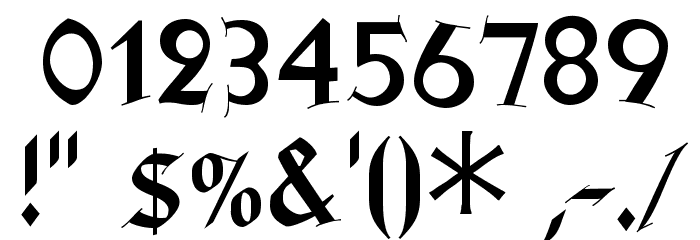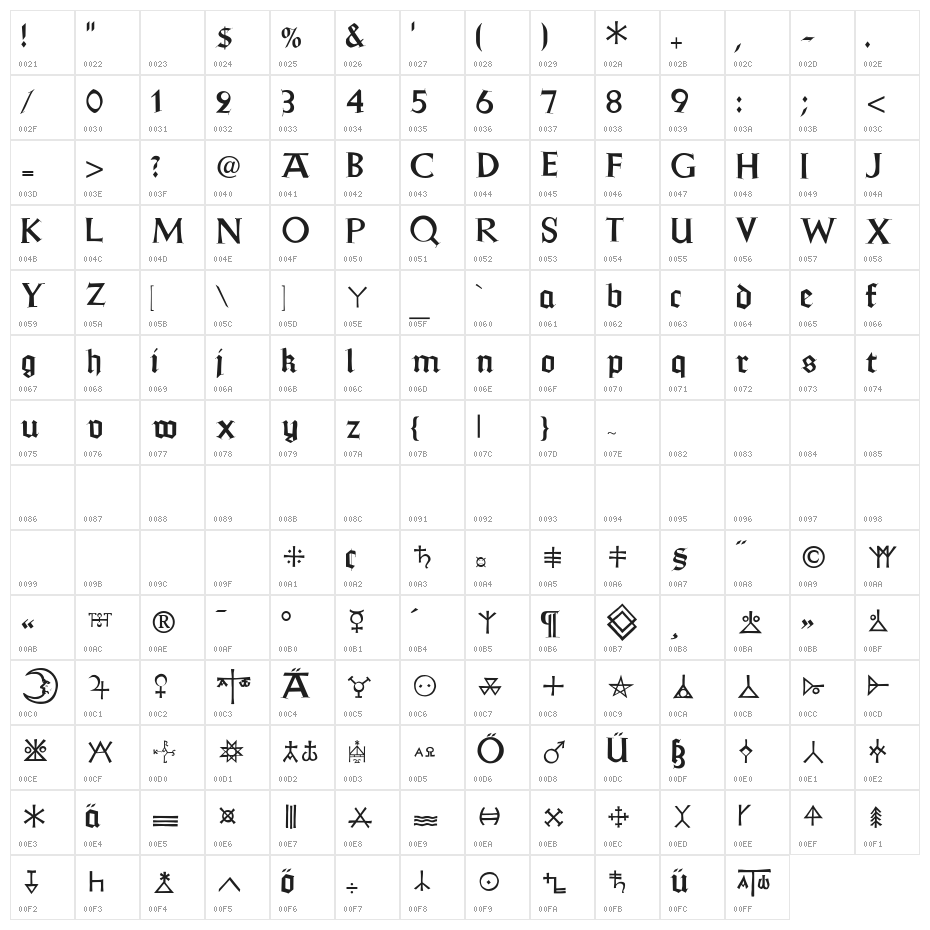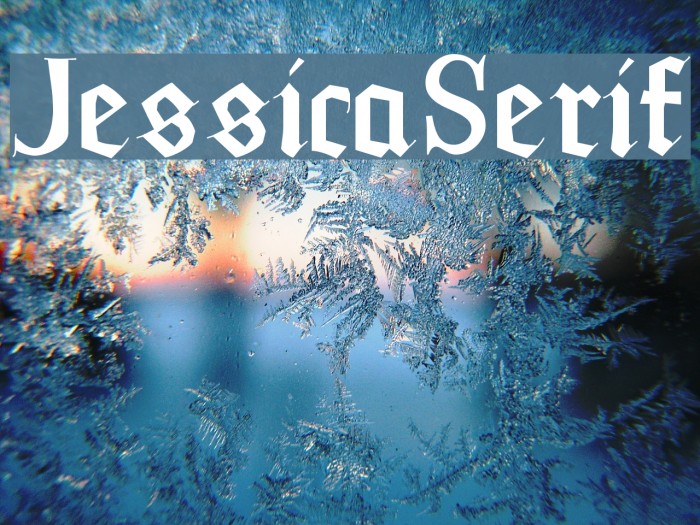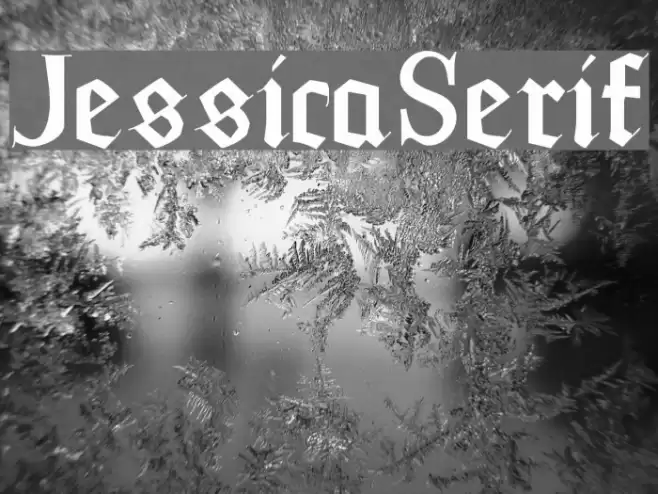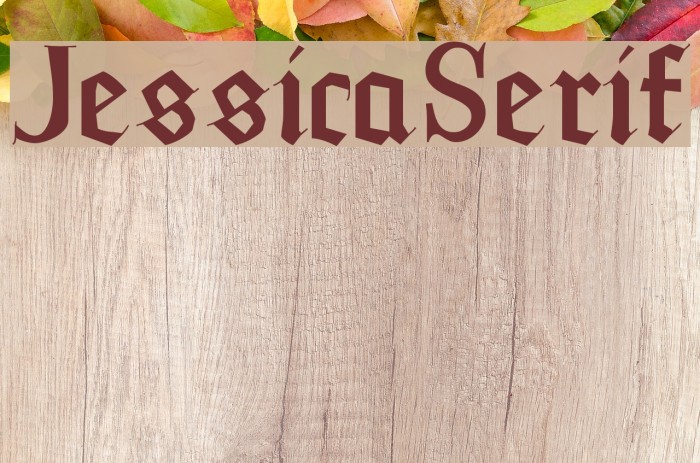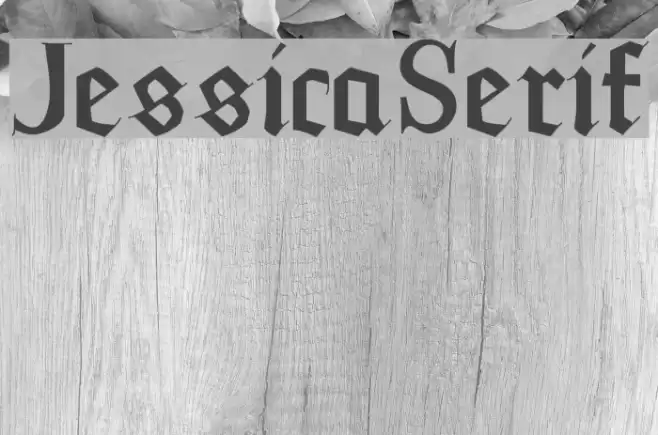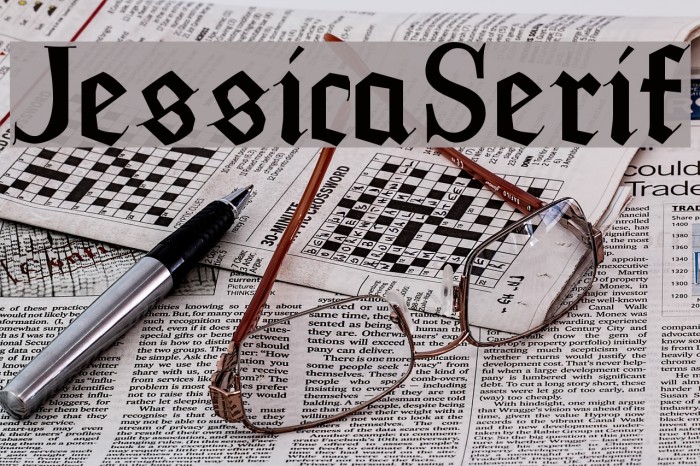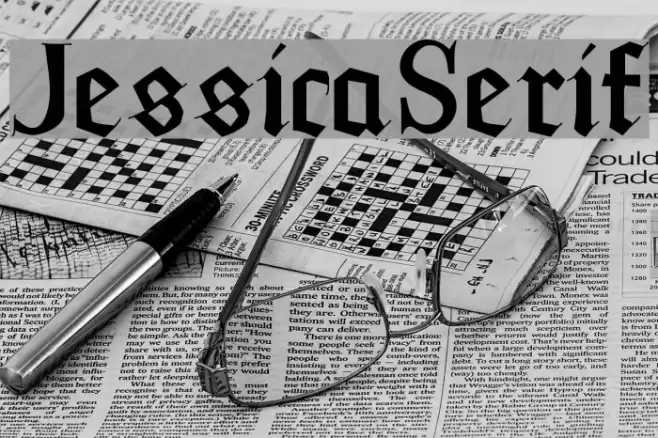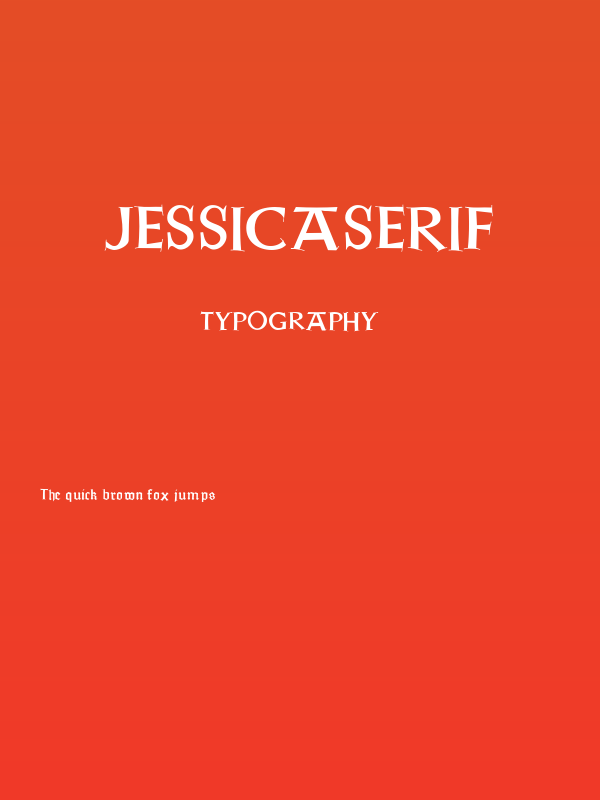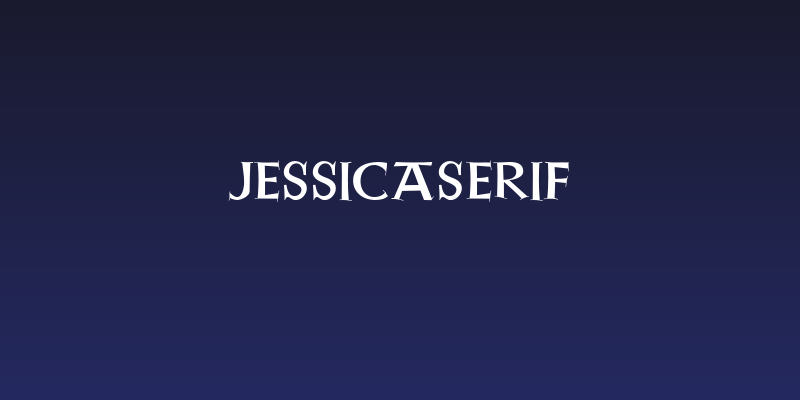
JessicaSerif Font
JessicaSerif Description
This font features a bold and striking design with sharp, angular serifs that give it a distinctive and dramatic appearance. The uppercase letters are tall and commanding, while the lowercase letters maintain a consistent style with a slightly condensed form. The numbers are robust and clear, making them highly legible. Special characters are designed with the same attention to detail, ensuring a cohesive look across all glyphs. The overall aesthetic is reminiscent of traditional serif fonts but with a modern twist, making it suitable for a variety of creative projects.